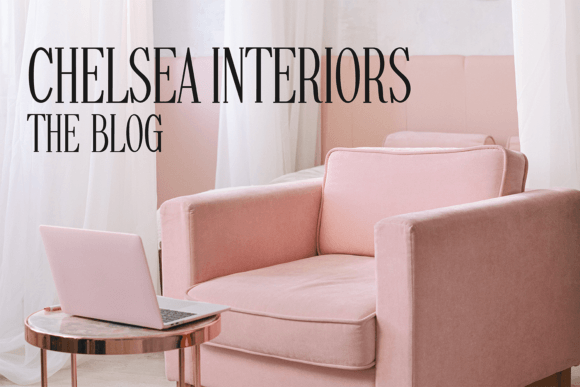
Fashionable Font
Fashionables is a tall, skinny serif font that’s cute, stylish, and feminine. Perfect for adding a touch of elegance to your projects!